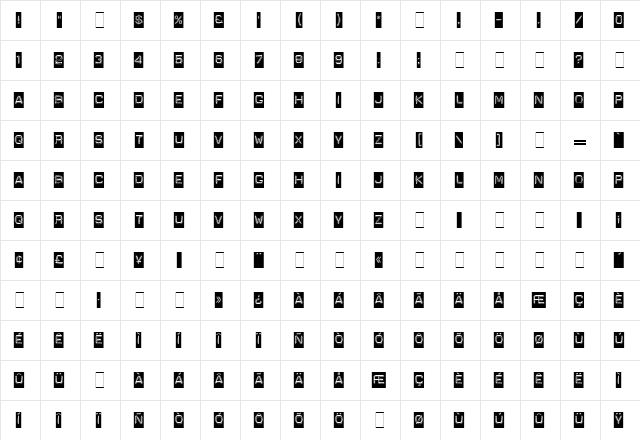
Dymo Regular
Design Context for Dymo Typeface
Dymo takes a measured approach to typography — its balanced proportions and neutral character make it a reliable workhorse for both digital and print work.